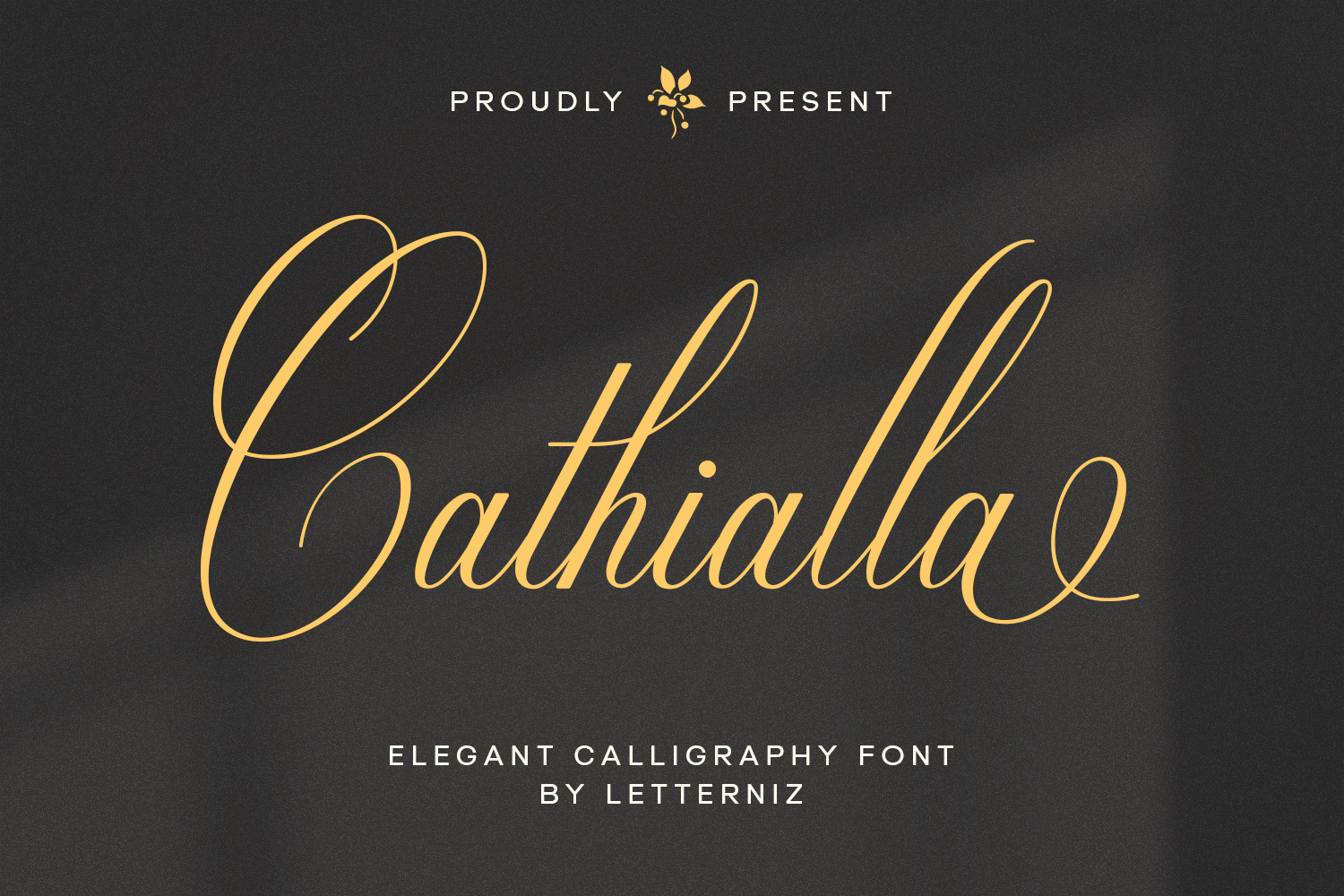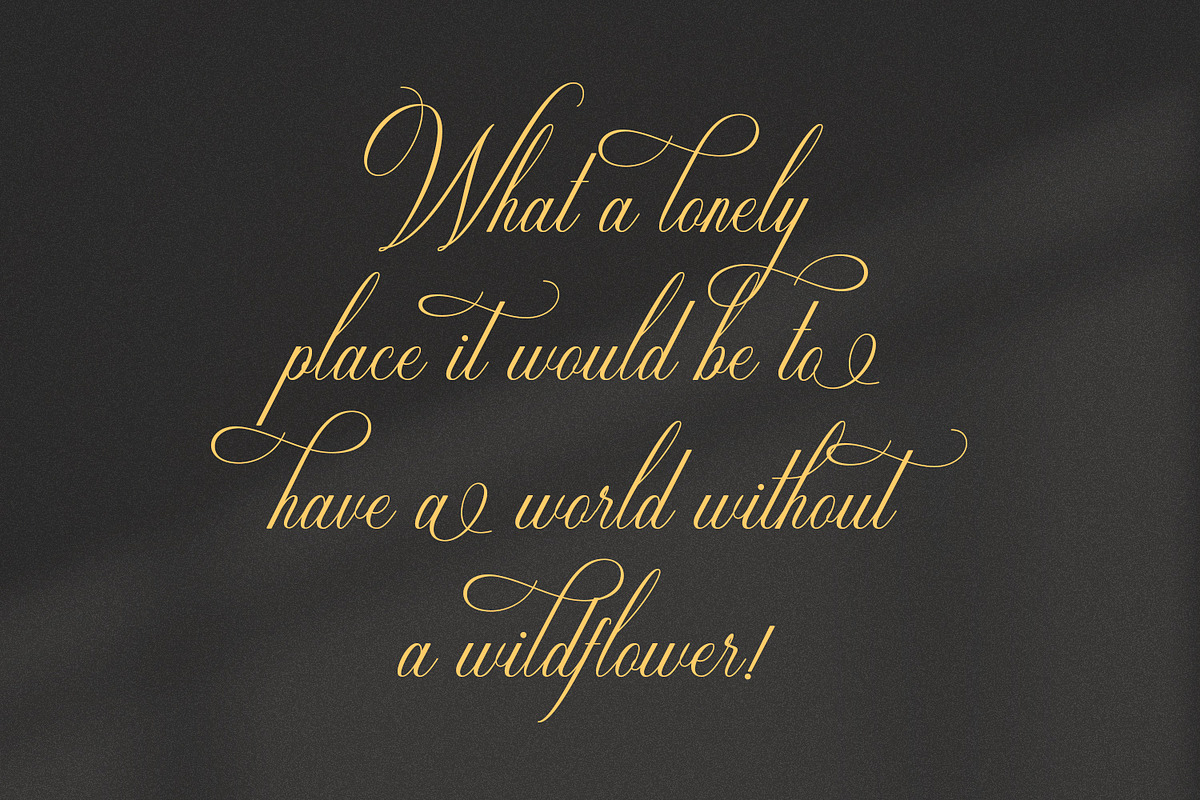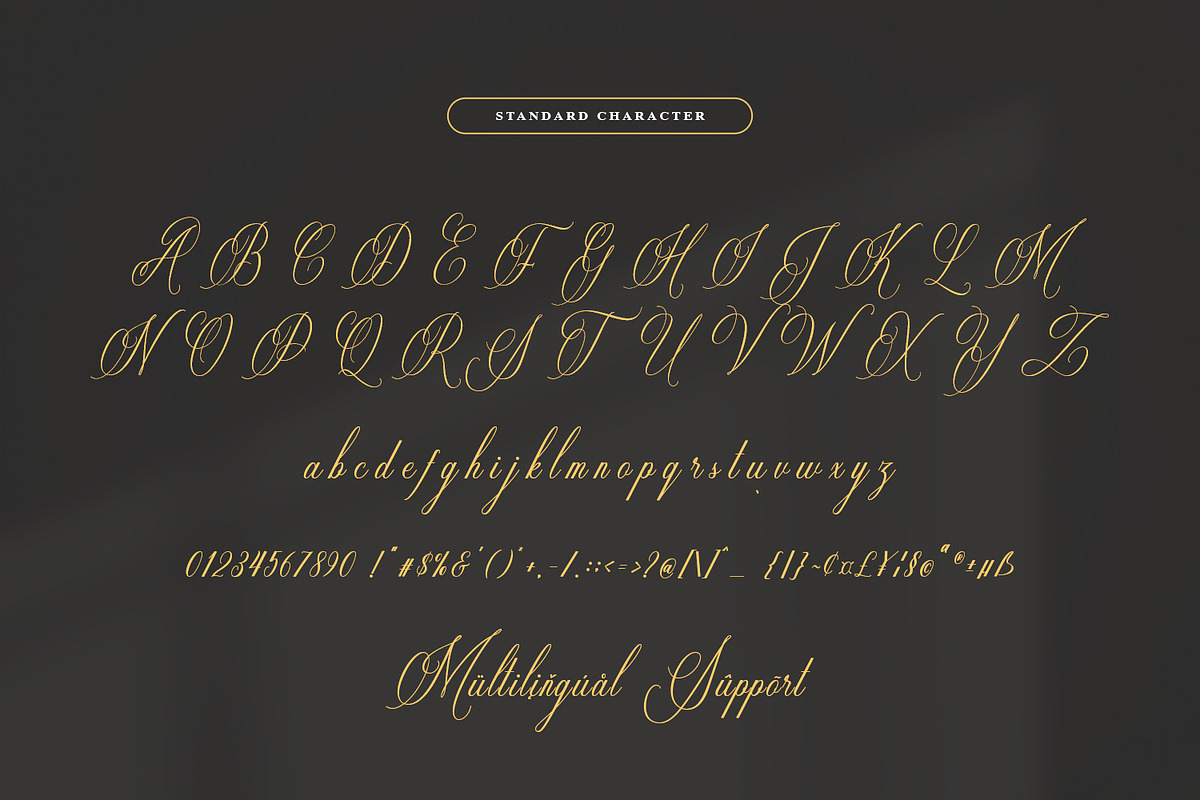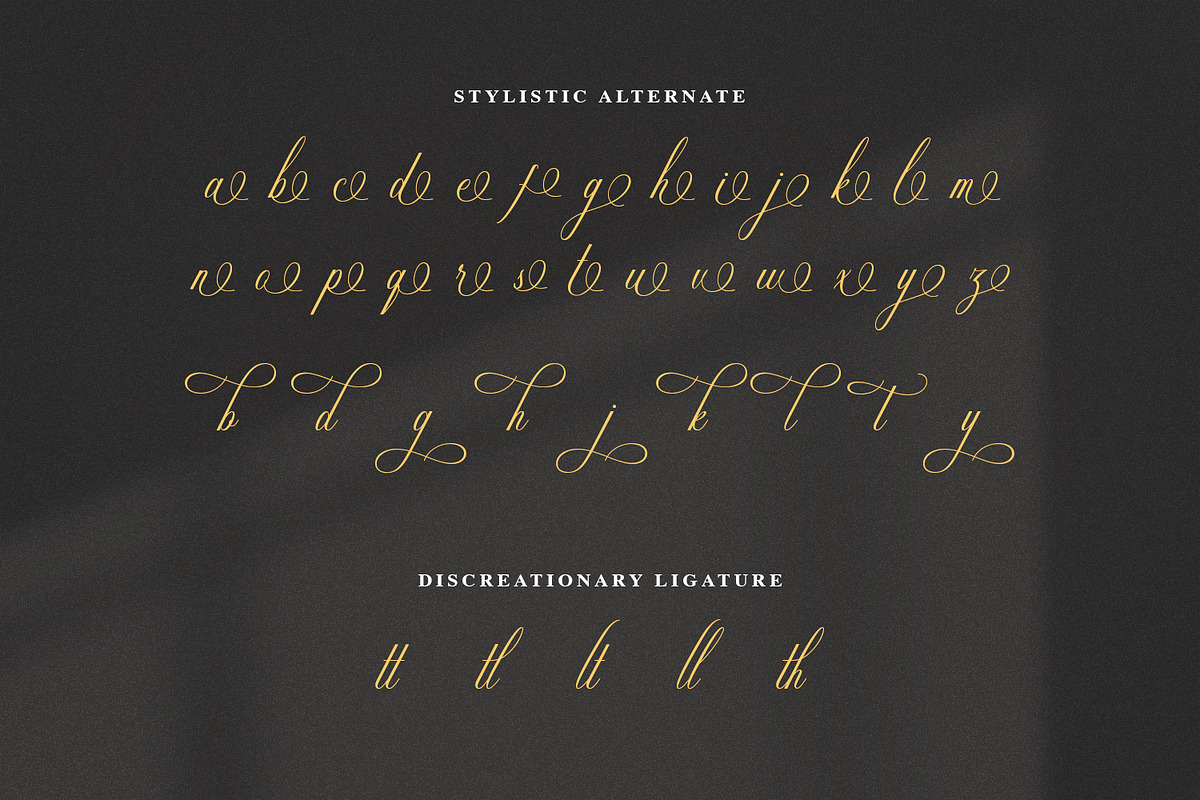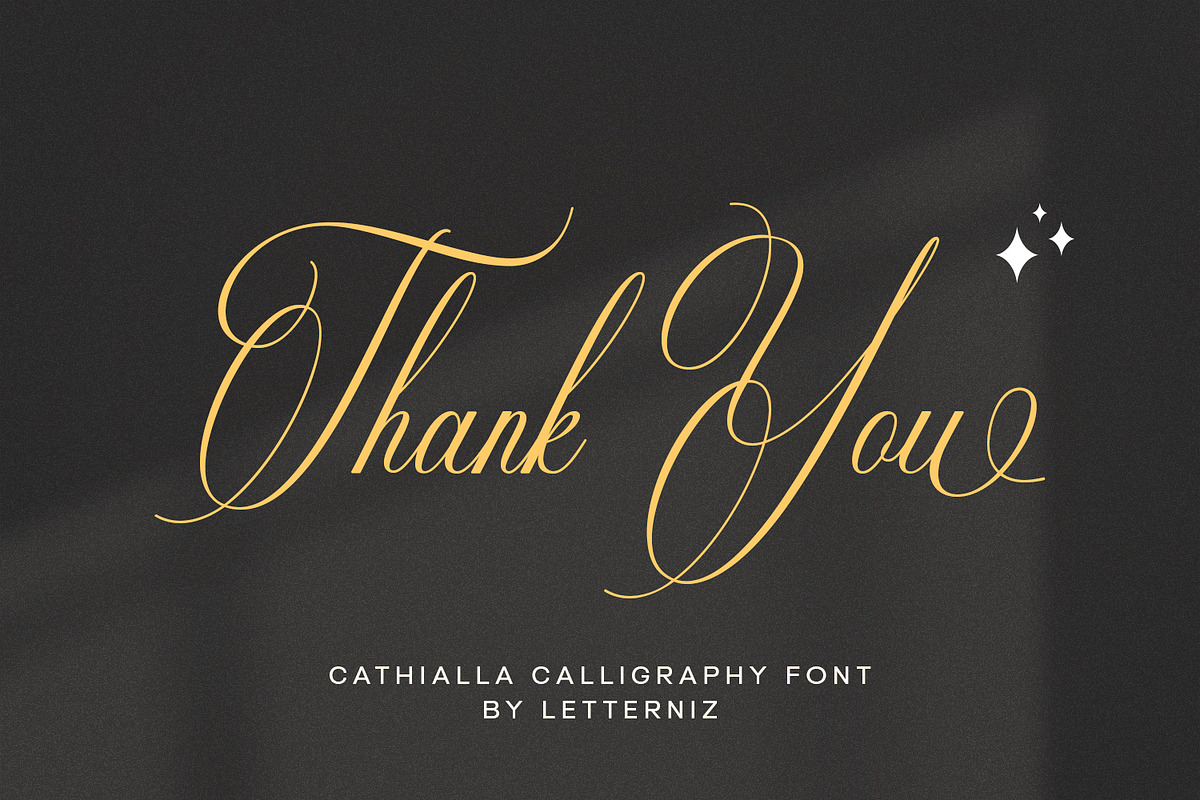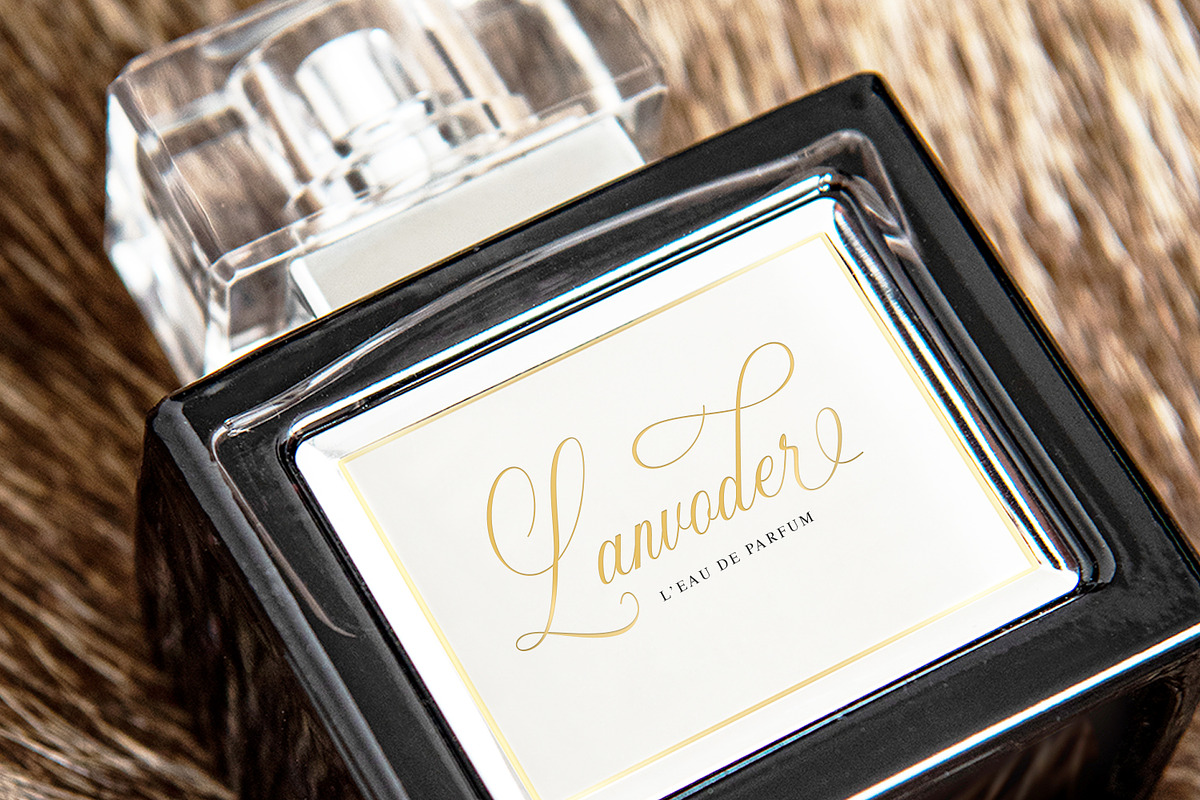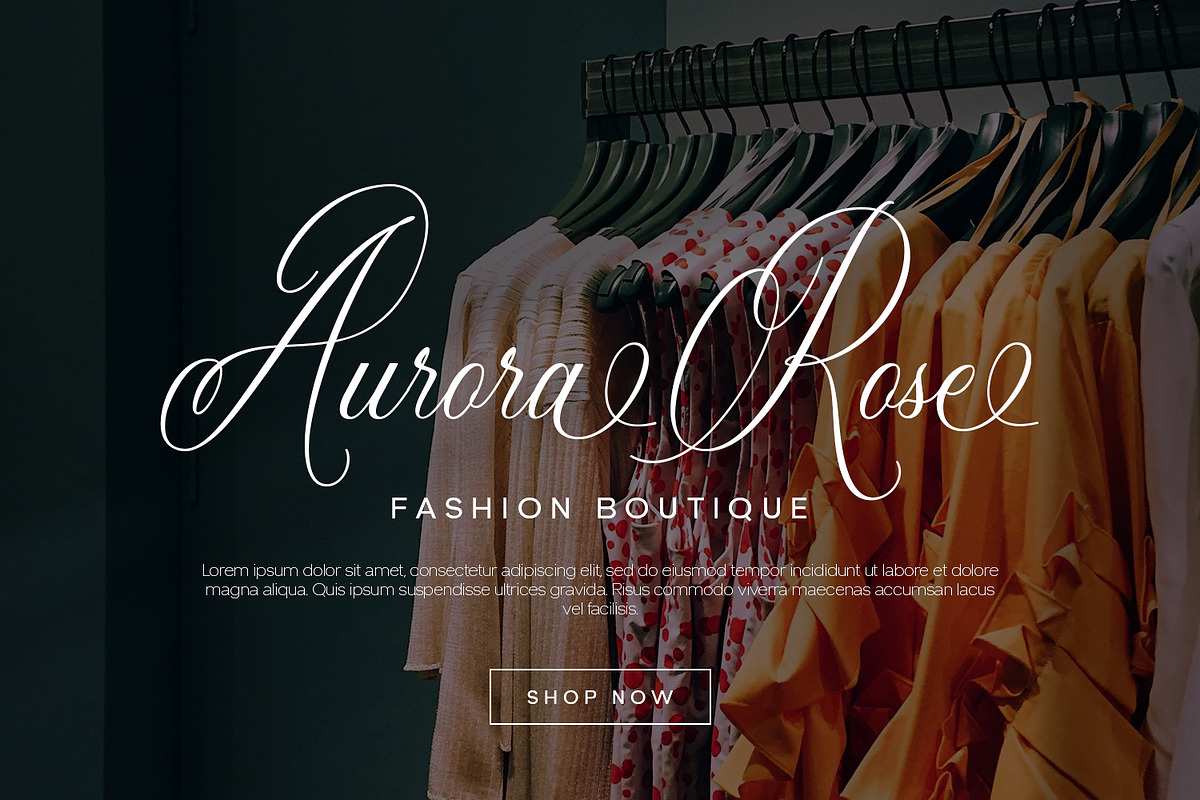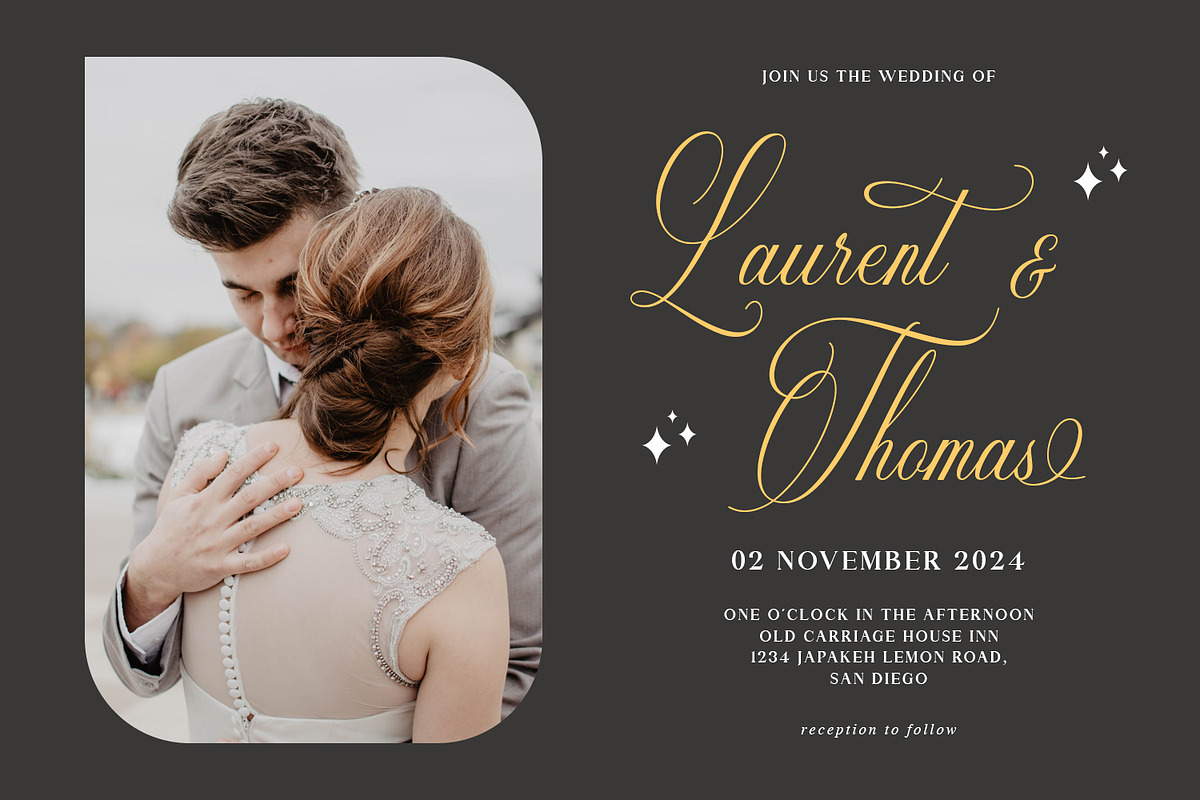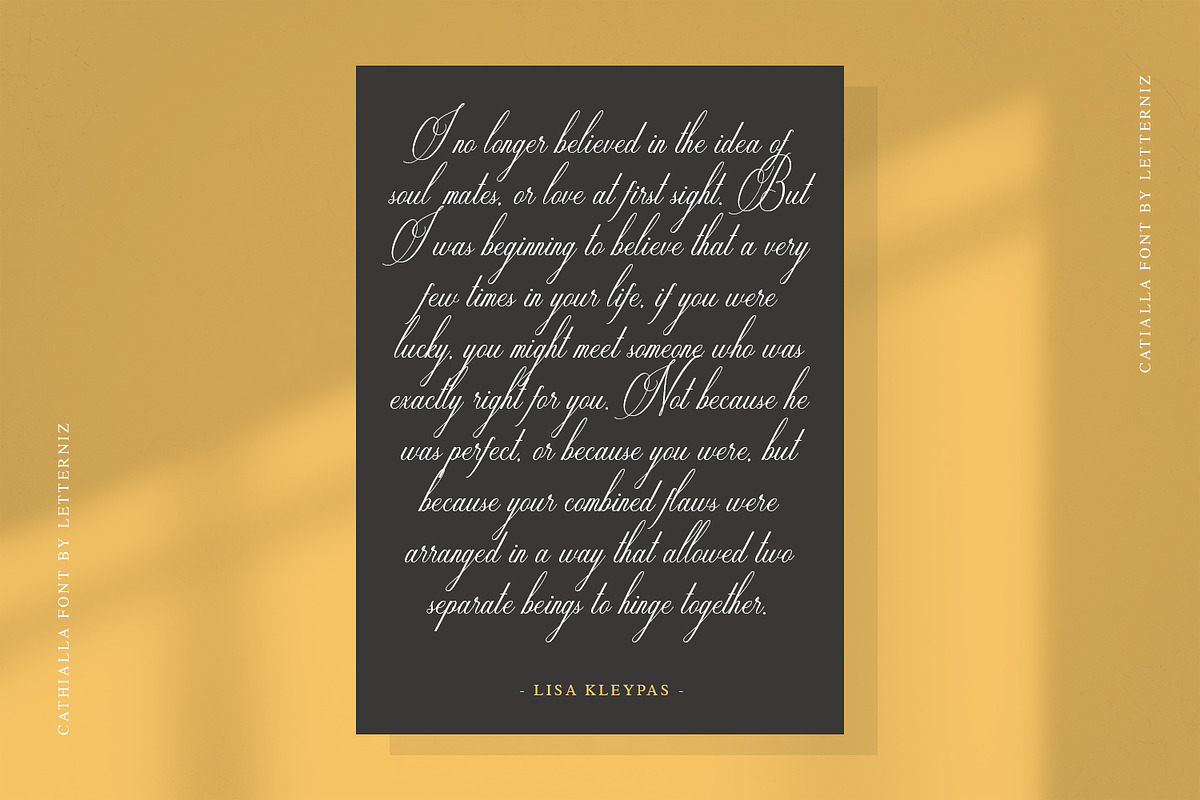
Cathialla calligraphy script font
Cathialla is a calligraphy script font that comes with beautiful characters, sophisticated classic decorative copper script with a modern touch. Cathialla is attractive typeface that is smooth, clean, feminine, sensual, glamorous, simple and very easy to read, because there are many fancy letter connections, perfect for adding a touch of refinement to projects like as invitations, labels, restaurant menus, logos, fashion, make up, stationery, novels, magazines, books, greeting / wedding cards, packaging, labels or any type of advertising purpose.